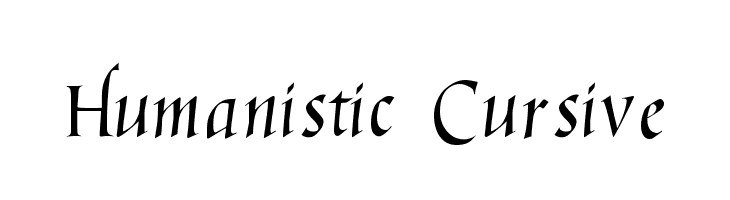
A playful, handwritten font with rounded edges and a casual style.
A playful and whimsical design featuring fortune cookies with slips of paper.
A whimsical, abstract font inspired by primitive art with playful, dynamic characters.
A dynamic 3D italic font with a futuristic and bold design.
A playful, decorative font with circular patterns forming each character.
A bold, flowing script font with elegant, cursive letterforms.
A bold, semi-italic, futuristic font with geometric shapes and consistent stroke width.
A dynamic font combining calligraphic elegance with modern angularity.
A playful, bold font with rounded, thick strokes and a hand-drawn feel.
A modern, italic font with clean lines and balanced proportions.
Decorative serif font with elegant curves.
A bold, slanted font with angular, dynamic characters.
A dynamic handwritten font with bold, energetic strokes.
A bold, flowing script font with elegant, interconnected strokes.
A bold, playful font with cartoonish, cat-themed accents.
A whimsical, hand-drawn font with quirky, cartoonish characters.
A dynamic and energetic script font with fluid, sweeping strokes and a modern calligraphic style.
A bold, italic stencil font with a modern, industrial look.
A bold, handwritten-style font with rounded, playful characters.
A whimsical collection of Christmas-themed icons for festive projects.
A playful, casual handwritten font with rounded, irregular letterforms.
A playful, bold font with rounded, thick strokes and a whimsical, friendly appearance.
A whimsical and playful font with curly, decorative elements and bold weight.
A bold, 3D, hand-drawn font with a rugged, energetic style.
A playful, heart-embellished decorative font with bold, rounded characters.
A bold, italicized font with angular, hand-drawn characters and a dynamic style.
A casual, handwritten font with playful curves and irregular strokes.